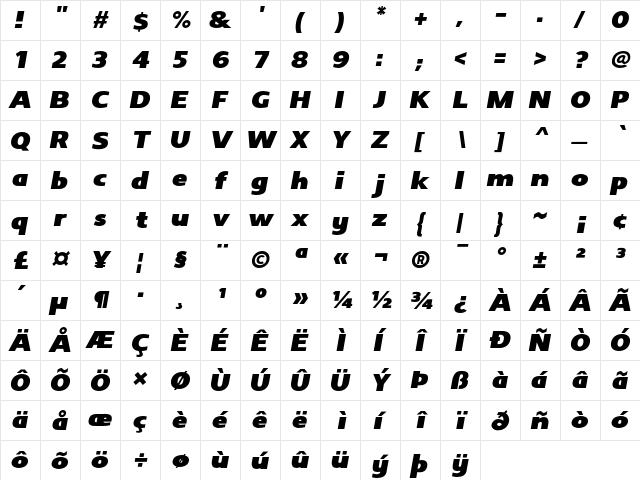
Insolent Italic
| Foundry | Alec Julien |
| Designer | Alec Julien |
Design Context for Insolent Typeface
Insolent takes a measured approach to typography — its balanced proportions and neutral character make it a reliable workhorse for both digital and print work. The dynamic lean of this cut emphasises speed and emphasis in any layout.
Pro Tip: Try Insolent for annotation and caption copy alongside an upright companion — the contrast in angle creates a dynamic but ordered typographic system.